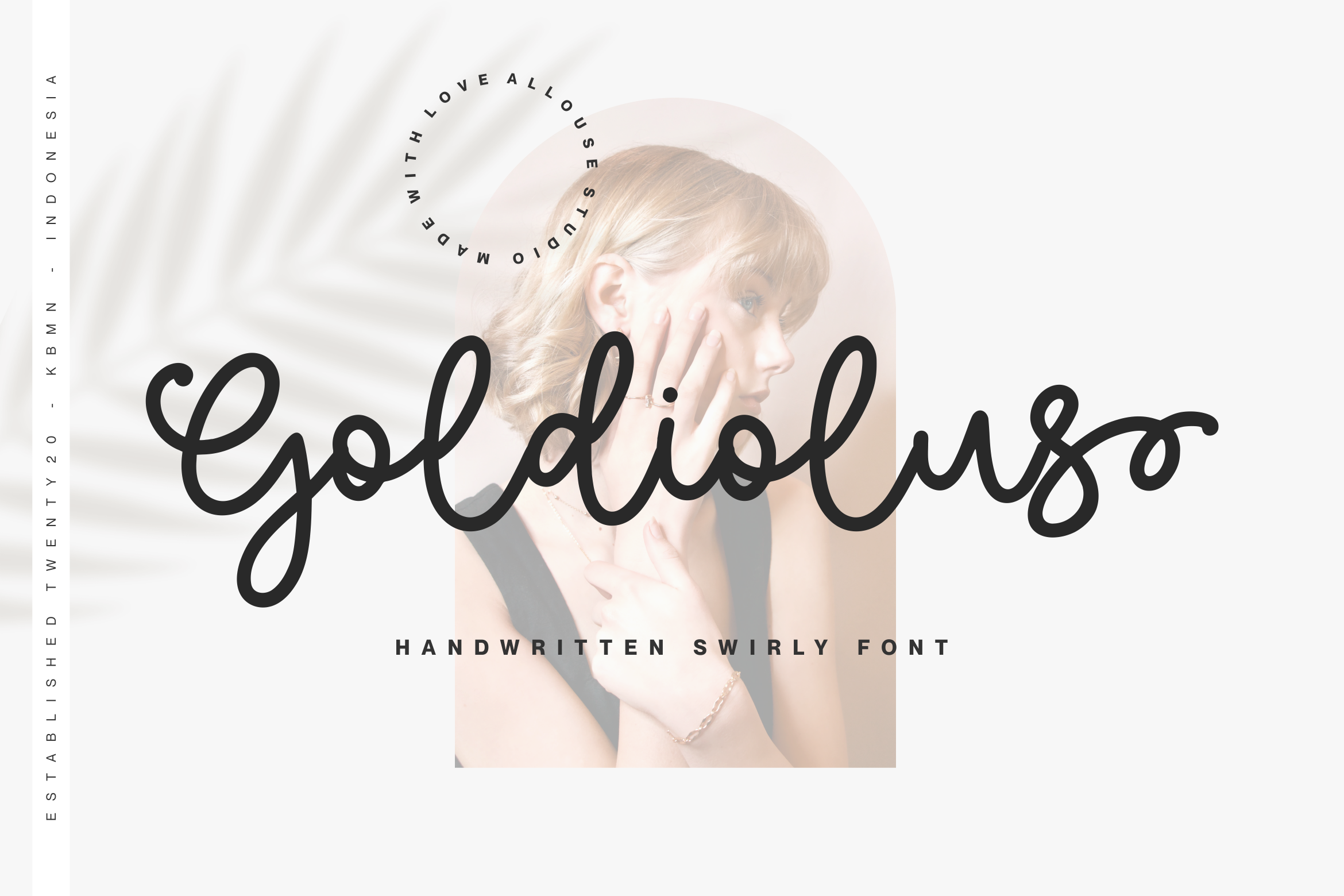
Goldiolus Font
Proudly Present, Goldiolus
Goldiolus is a Handwritten Swirly Font.
Goldiolus is perfect for product packaging, branding project, megazine, social media, wedding, or just used to express words above the background.